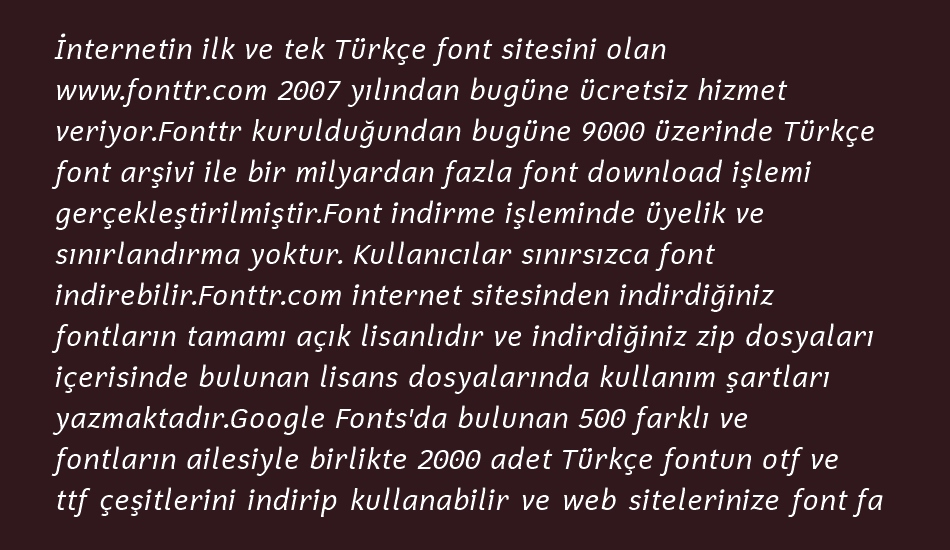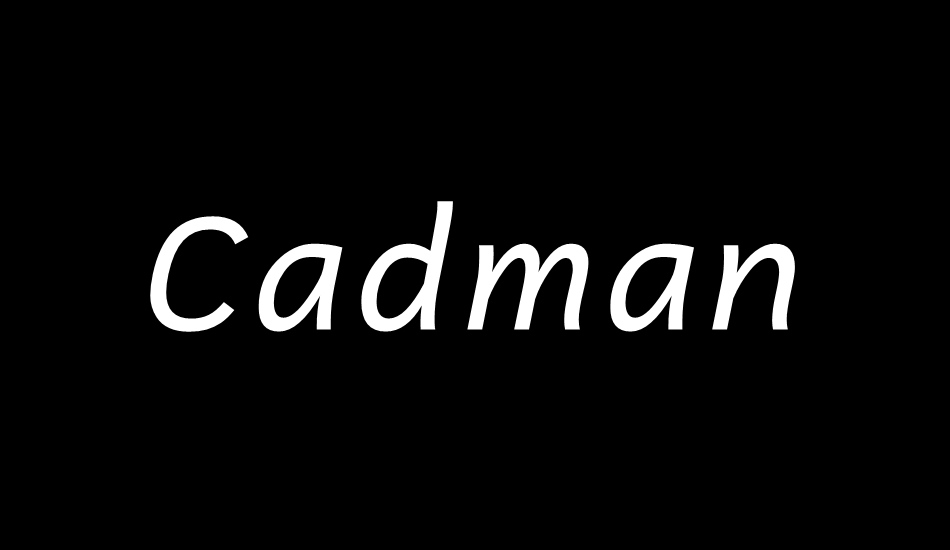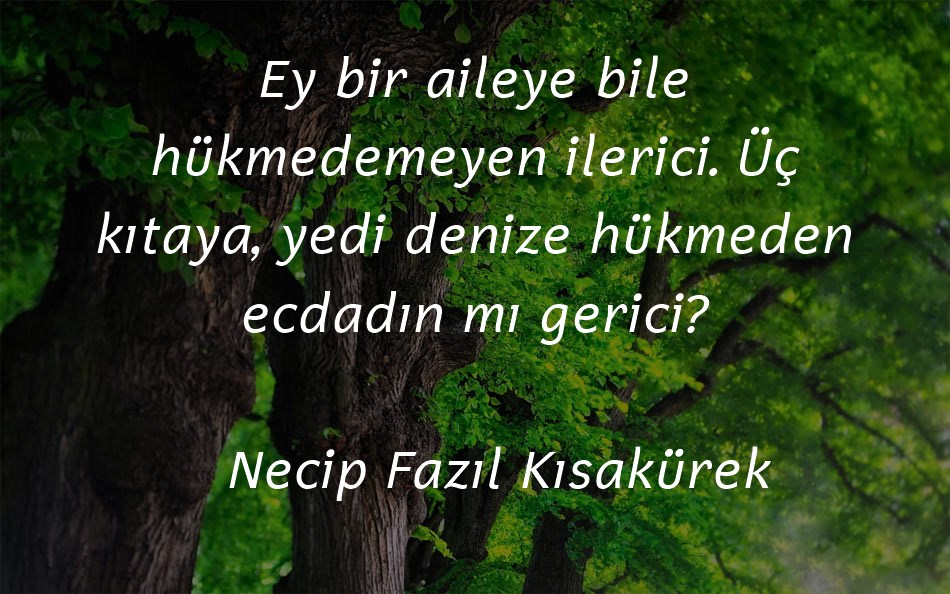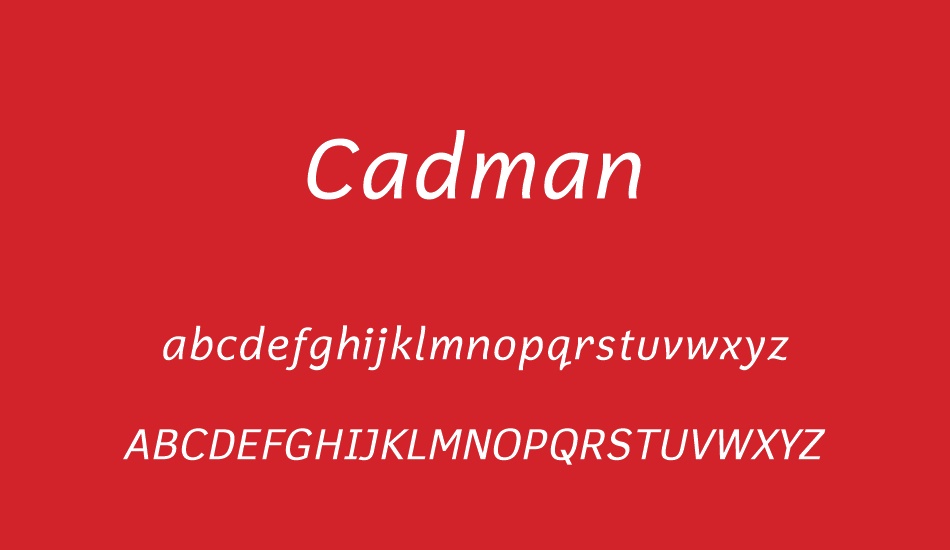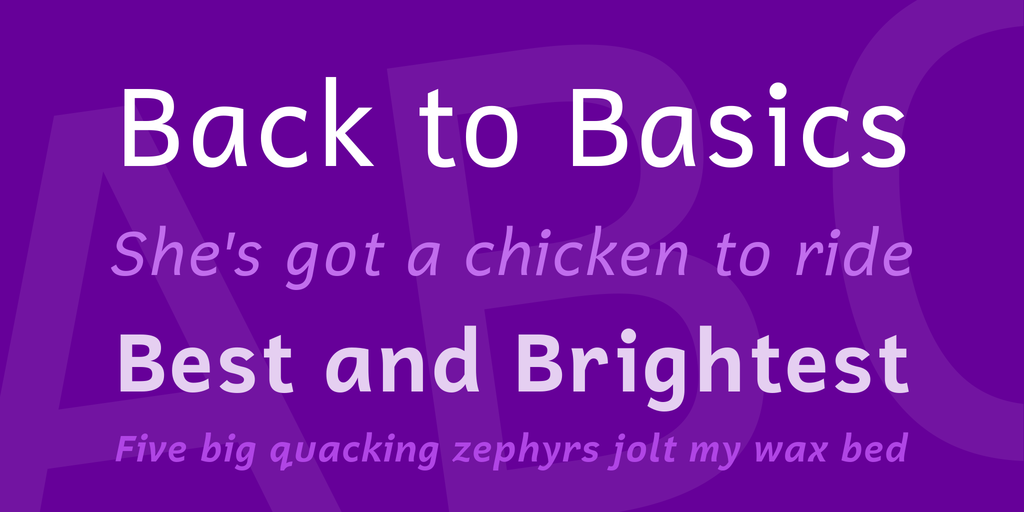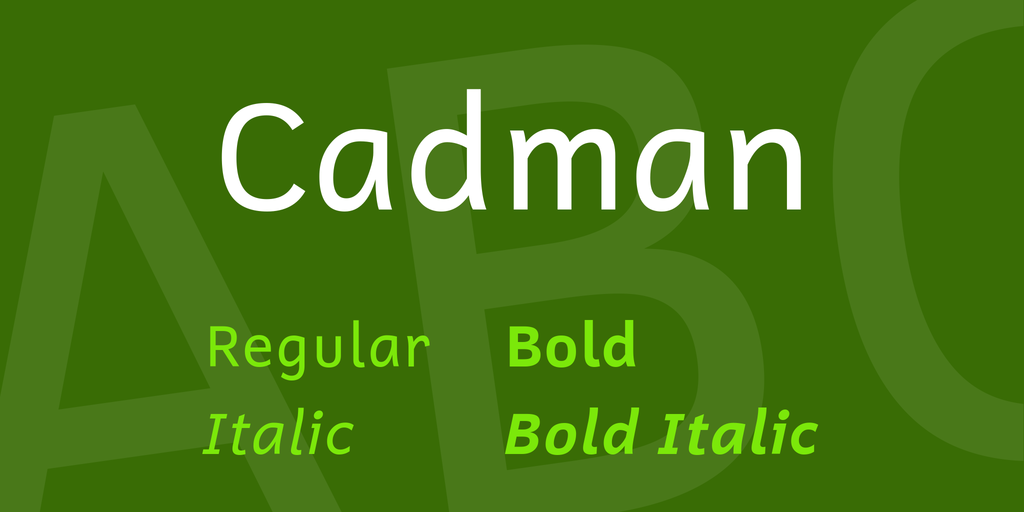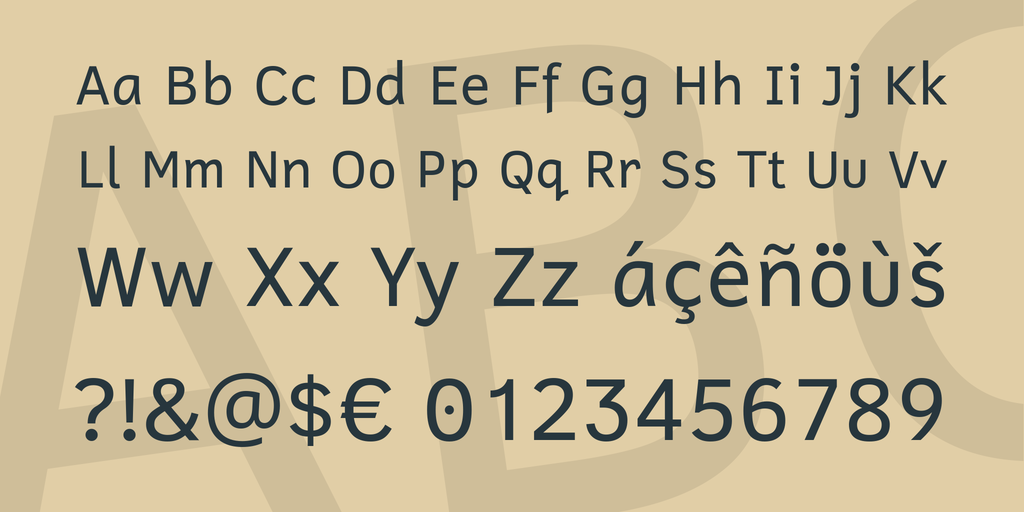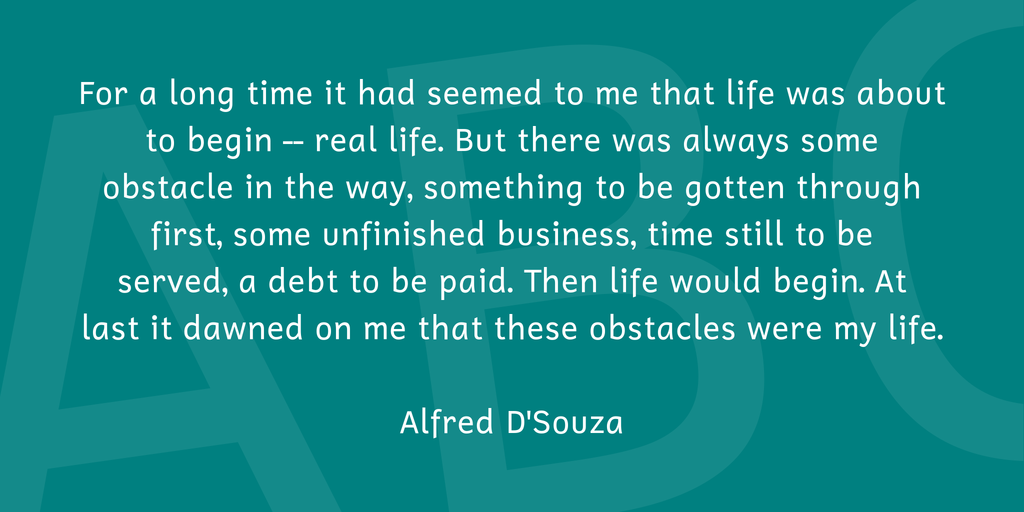
cadman font
cadman
This is the Cadman font.
I have two friends who are dyslexic and they both expressed the need for a clear and legible font so I made one.
The name of the font is an indirect reference to one of these people who spends a lot of his time using CAD systems.
I don't know if a specific font for dyslexia is a good thing or not, certainly some fonts are more legible than others.
My hypothesis is that the success of fonts which have been specifically designed for people with dyslexia is a placebo effect. The reader expects the special font to be easier to read so they put extra effort into reading the type. Knowing that a typeface has been specifically created to address one’s needs may well provide useful motivation that enhances concentration and engagement. Then, having better understood text for having made an effort to read it, the reader credits the enhanced comprehension to the special font rather than them having put in extra effort to comprehend it.
However having said that some fonts are easier to read and comprehend than other so why not make a font which fulfills all the criteria, it certainly cannot make the situation any worse.
The Cadman font has been designed to be as legible as possible. There is a lot of opinion on the Internet about which fonts are suitable for dyslexic people and much of it is contradictory. This is only to be expected, people are different from one another and what is suitable for one is not suitable for all.
However there are some characteristics which are commonly accepted as making a font more suitable for use by dyslexic people.
- Good ascenders and descenders
- Wide apertures
- b and d distinguished from each other not just mirrored
- p and q distinguished from each other not just mirrored
- Different forms for capital I, lowercase l and digit 1
- Rounded g and rounded a as in handwriting
- r & n together (rn) should not look like m
- The f character has a descender to make it more unlike a turned t
- M and W should be distinguished from each other and not just be mirrored
- 6 and 9 distinguished from each other not just rotated
- The use of distinct letterforms where confusion could arise
- A slightly looser spacing than normal
Cadman fulfills all these criteria. But Cadman is not just for people with dislexia.
Cadman is suitable wherever a clear and legible sans serif font is required. It has Bold, Italic and Bold Italic.
There are many open type features including SMALL CAPITALS, fractions and ordinals. There are two stylistic alternatives which change the digit zero from dotted to slashed zero or blank zero.
Cadman contains a Greek alphabet suitable for mathematics and many Mathematical Operators, Letterlike Symbols, Miscellaneous Symbols and Dingbats.
The Cadman Font
by Paul J. Miller